Choosing the right lettering can make or break the mood of a comic. From punchy action scenes to lighthearted humor, the font you use shapes how readers experience the story.
In this article, we’ve rounded up the best font for comics that can help illustrators, writers, and designers bring their panels to life. Whether you’re after playful handwritten styles, bold display fonts, or clean typefaces for narration, these options will give your storytelling the perfect visual boost.
Key Takeaways:
Here’s a list of the best fonts for comics, from playful to bold, to help you choose the right style for your story.
Perfect for comic designs that need to be fun, raw, and eye-catching, this font features thick, hand-drawn strokes with playful curves that make characters appear more expressive.
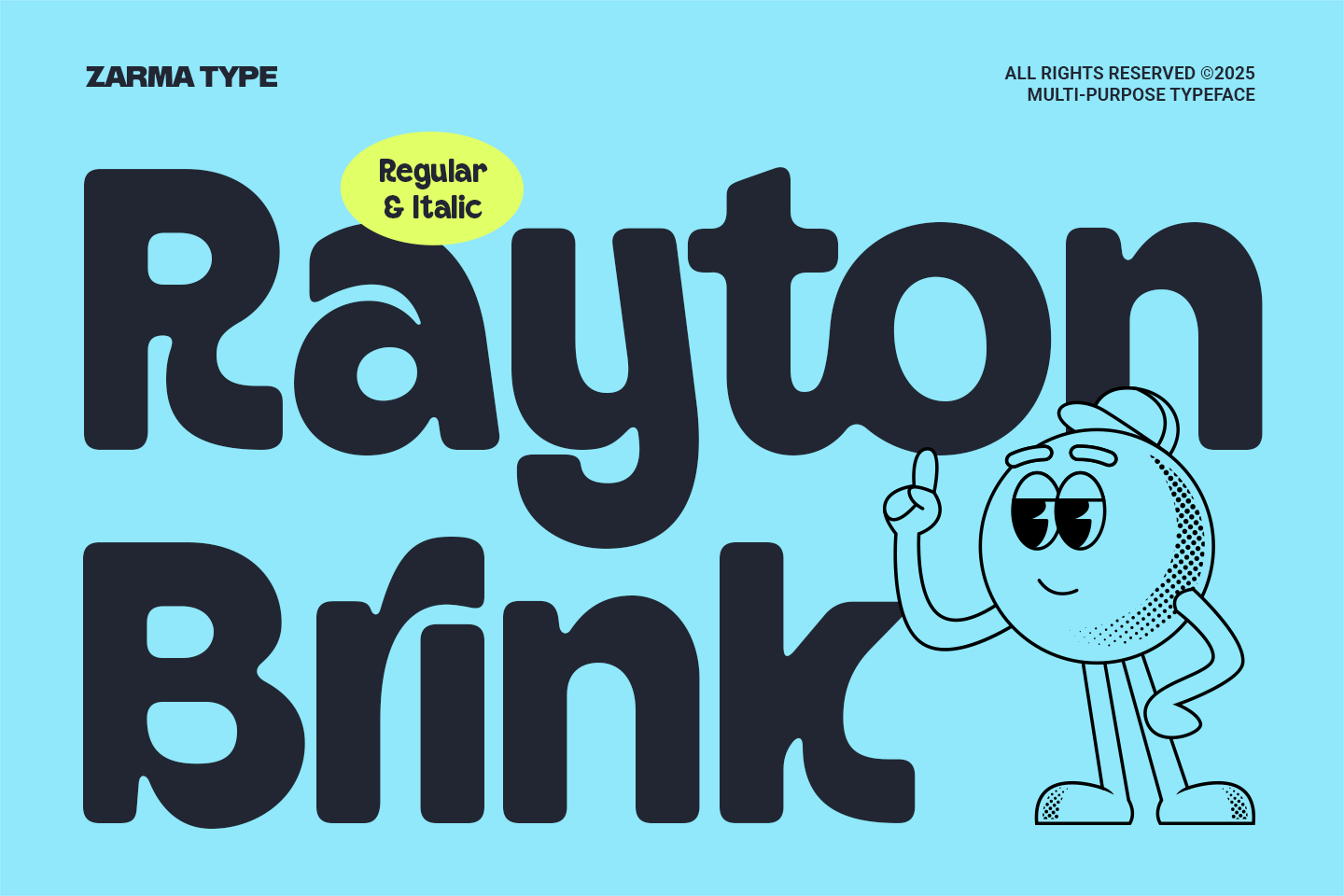
Rayton Brink is a rounded comic style font that feels fun and approachable. Its smooth, thick curves give off a playful vibe, making it great for lighthearted dialogue or cheerful comic scenes.
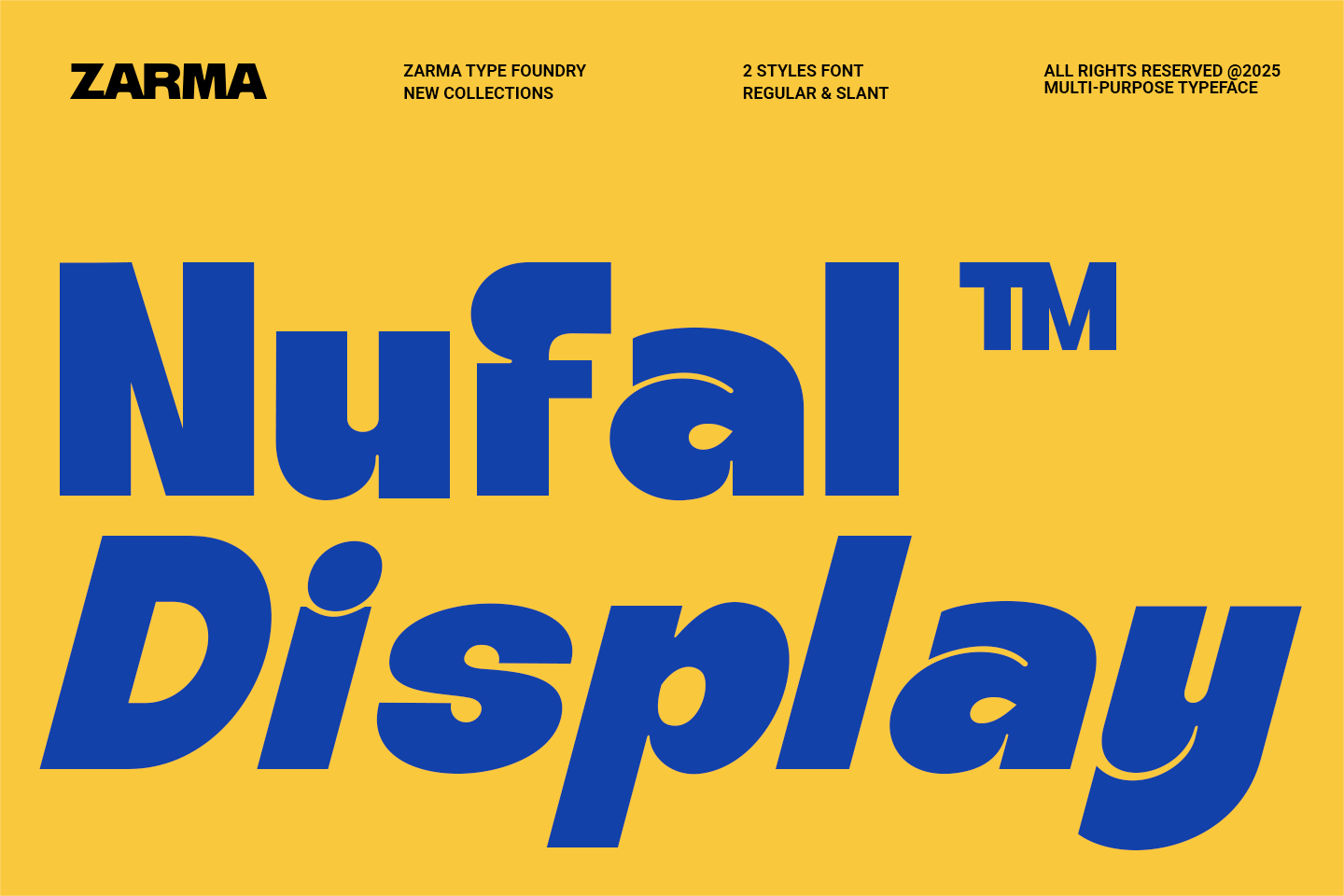
Looking for a font that really pops off the page? Nufal is bold, quirky, and full of energy, which suits well for superhero stories or comedy scenes. Furthermore, it features chunky strokes and playful slants that immediately grab attention.
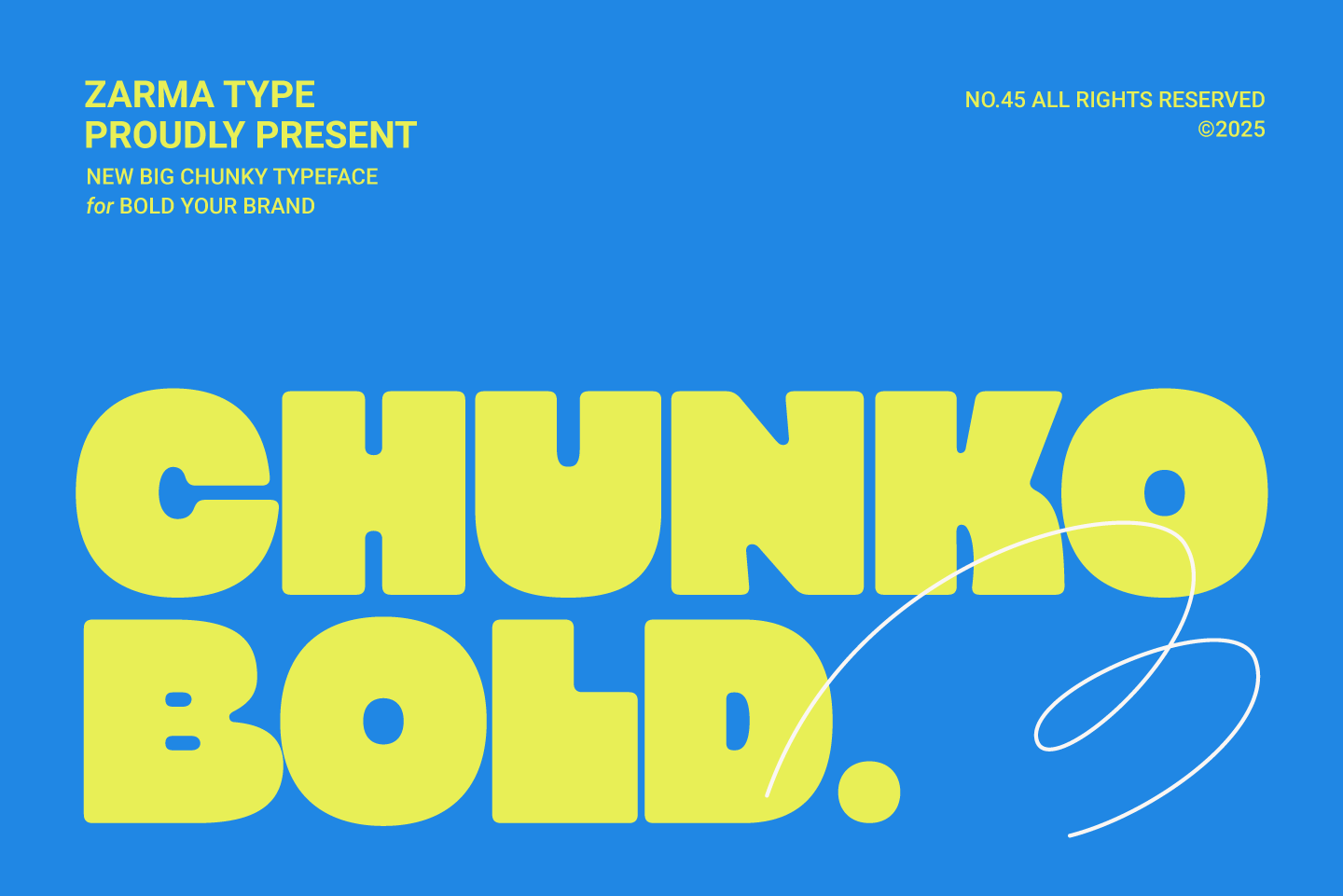
Chunko Bold keeps things simple but loud. With thick strokes and rounded corners, this font for comics works well in action scenes, dramatic covers, or anywhere you need words to stand out.
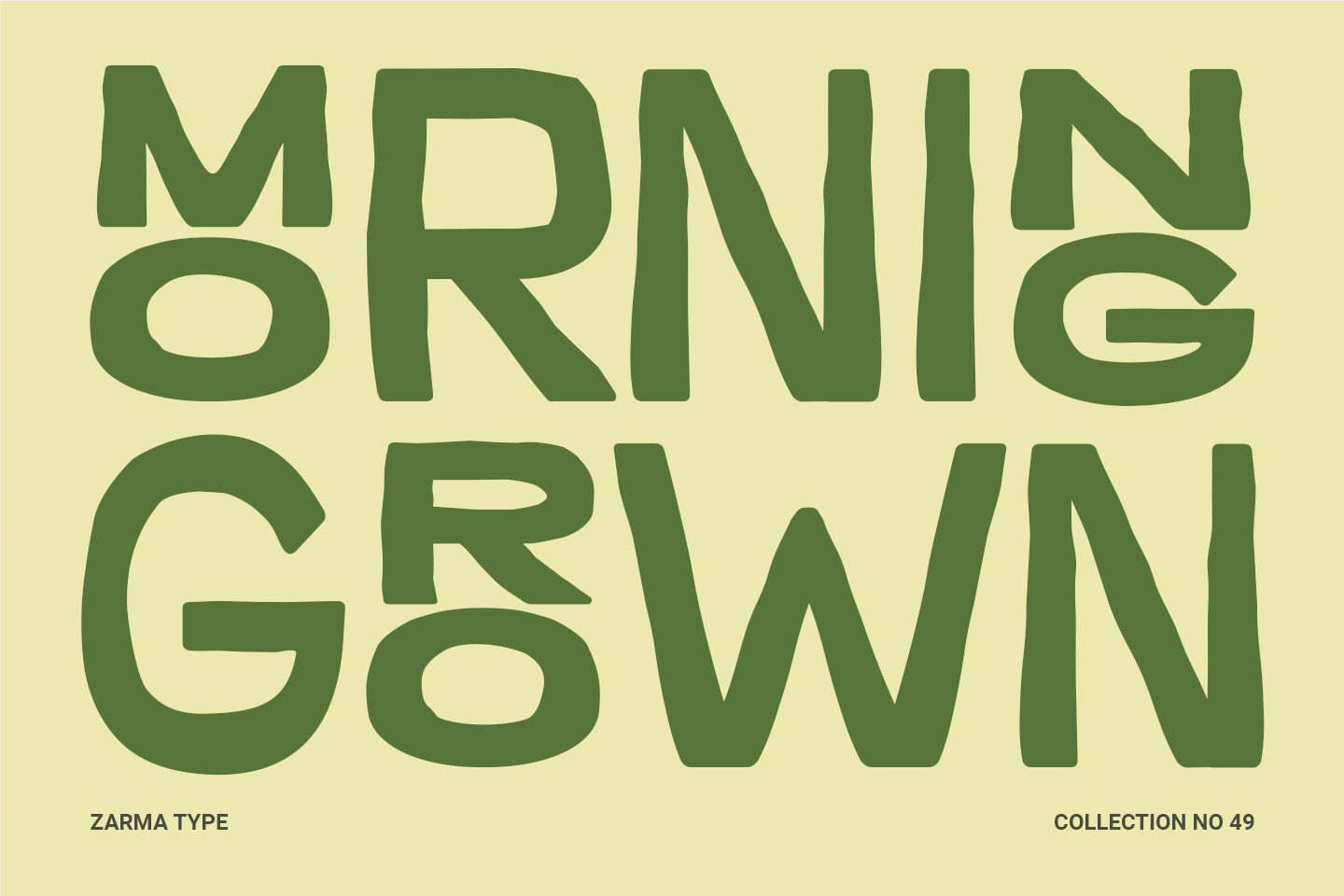
If you want a comic font that feels fun and organic, Morning Grown is a great pick. The bold, wavy lines and irregular letters give it a handcrafted vibe that works well in humor, slice-of-life, or kid-friendly comics.
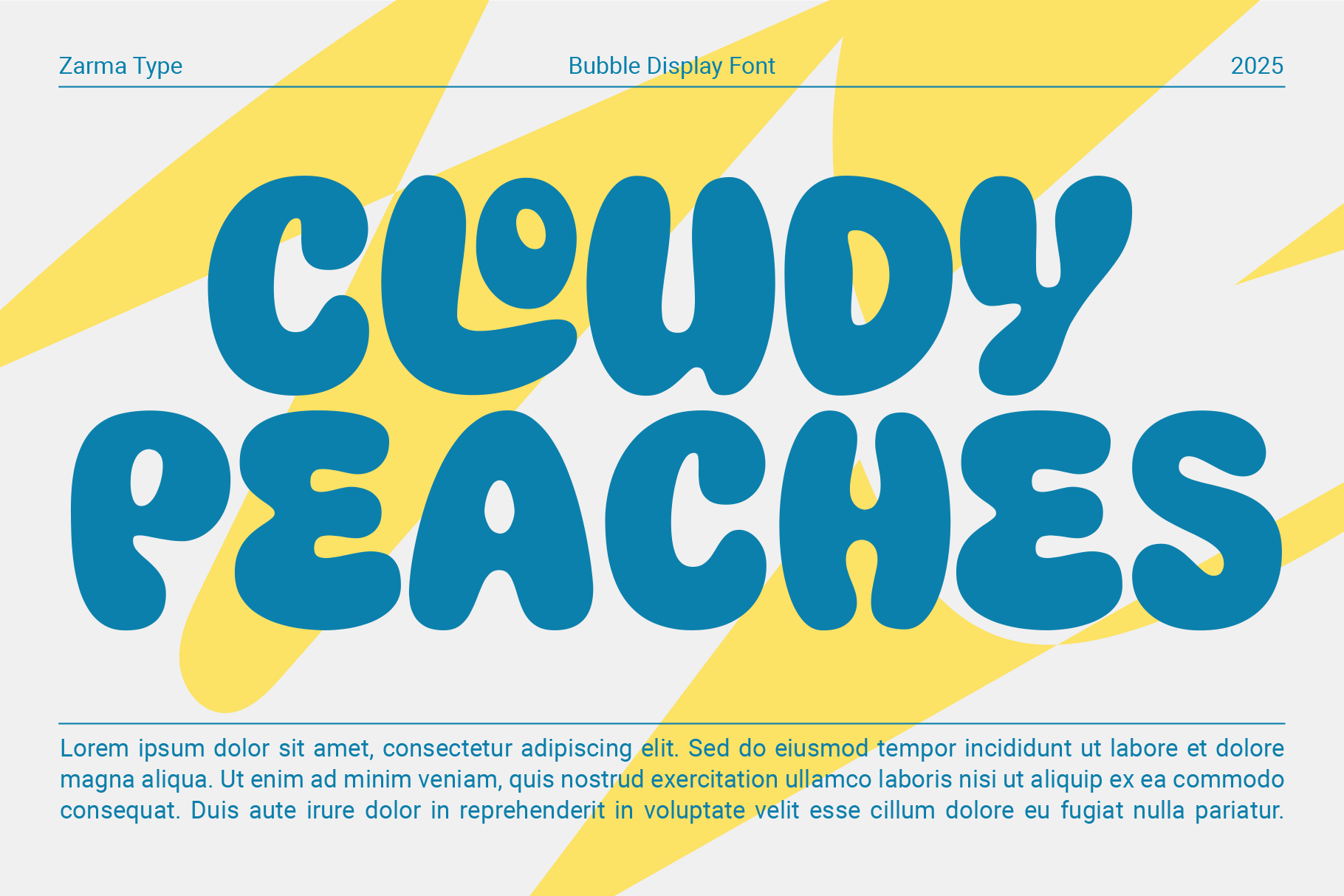
It is a bubbly font for comics that mixes nostalgia with fun. Its rounded shapes and bouncy style make it perfect for lighthearted stories, retro-inspired panels, or any scene that needs a playful vibe.
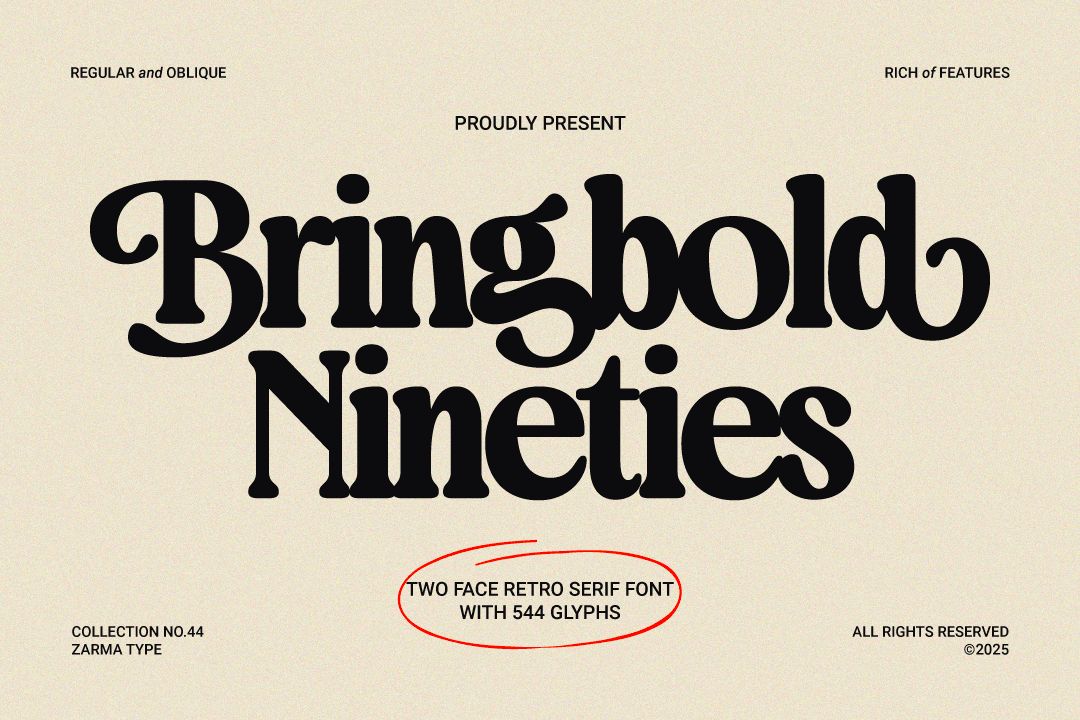
If you love that ’90s look, Bringbold Nineties brings it back in style. This bold serif font adds vintage charm to your comic text while staying clean and easy to read.
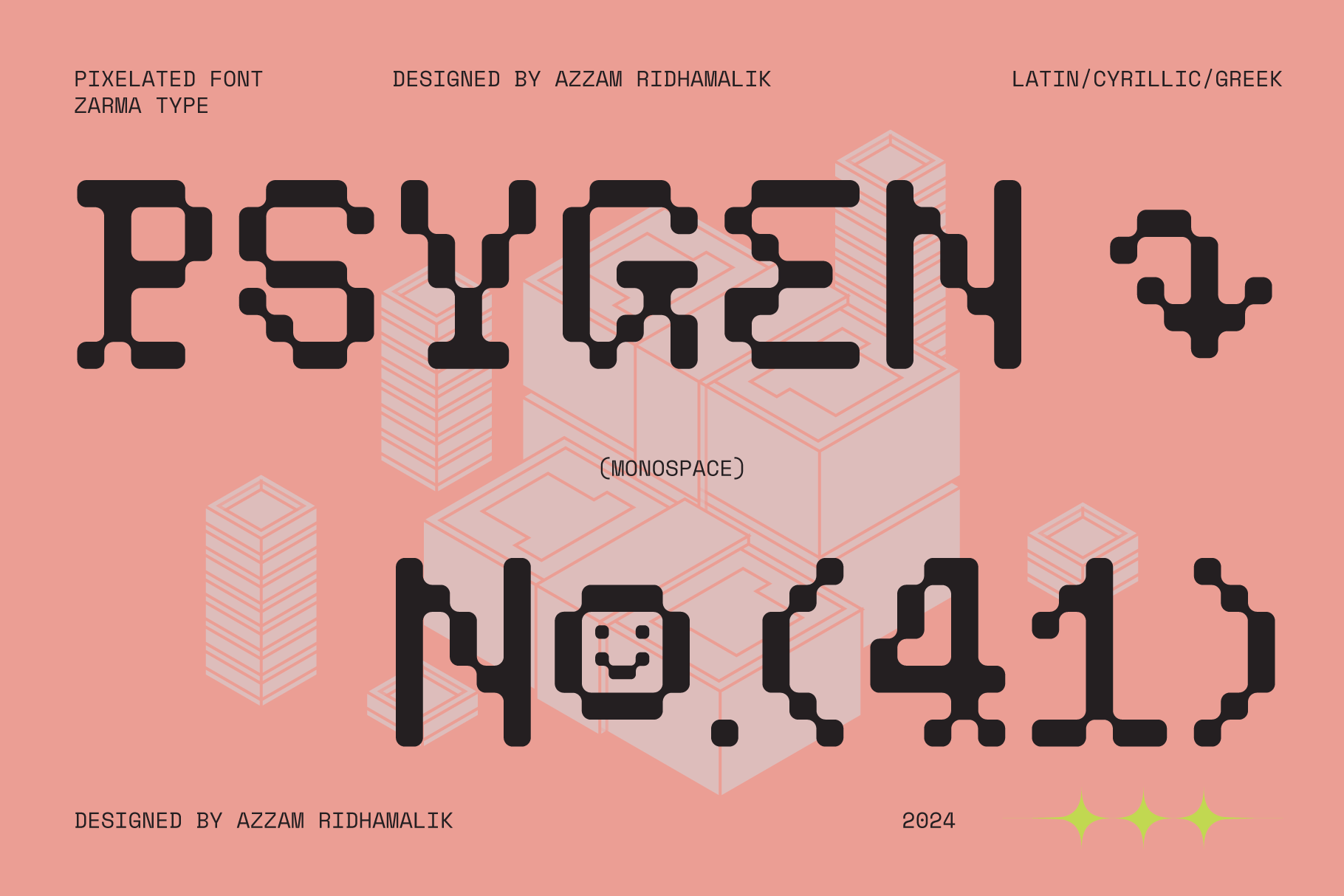
Psygen takes the pixel look and gives it a new twist. With its bold, square forms, this font for comics is ideal for panels set in virtual worlds, sci-fi battles, or any story with a digital edge.
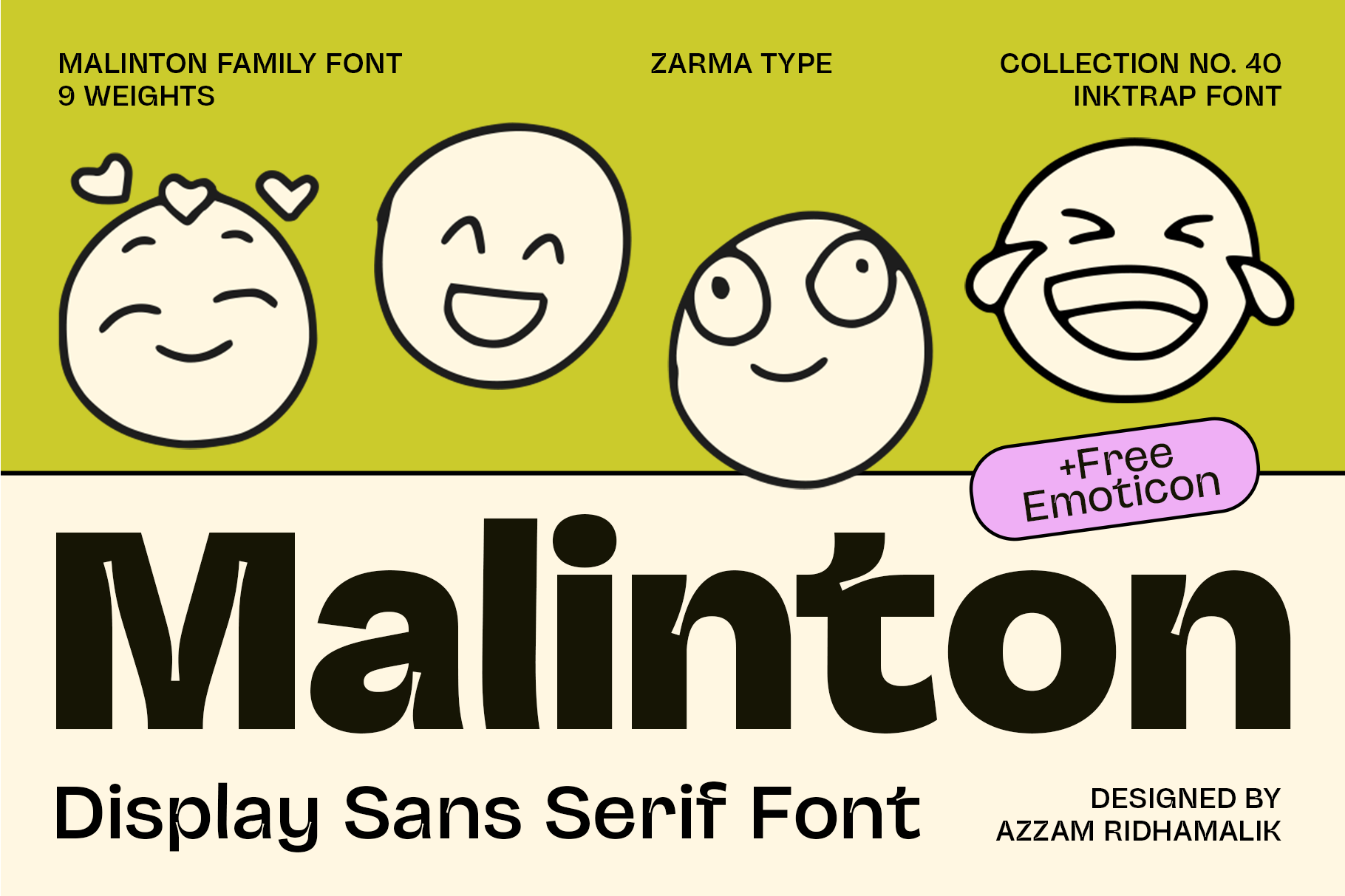
What makes Malinton stand out is its balance; fun enough to feel lively, but clean enough to stay easy to read. It’s a solid pick for slice-of-life comics or casual dialogue.
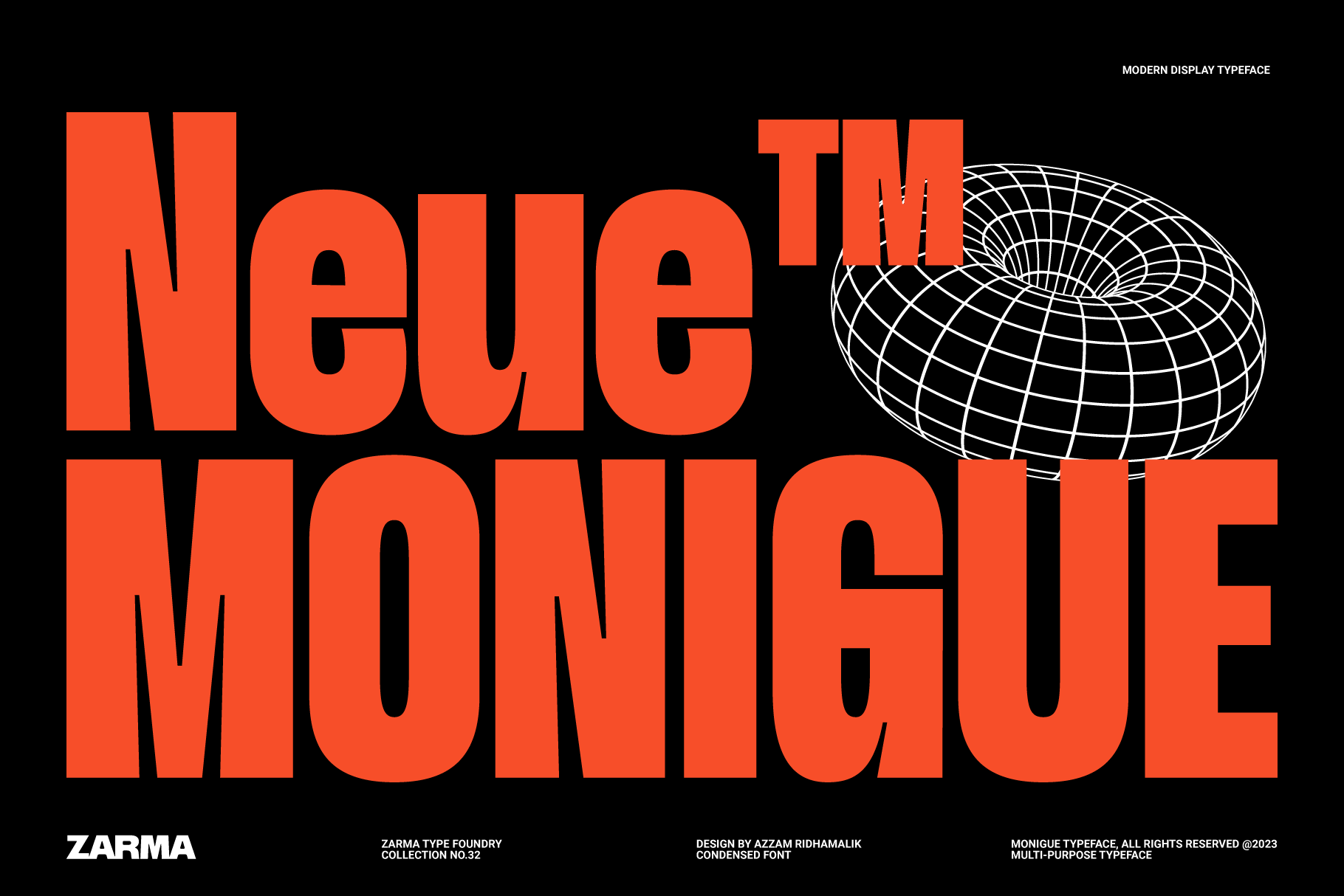
Monigue is all about strength and style. This condensed comic font channels 2000s design with a fresh twist, making it ideal for edgy stories, sharp titles, or as a bold font for manga that needs a modern edge.
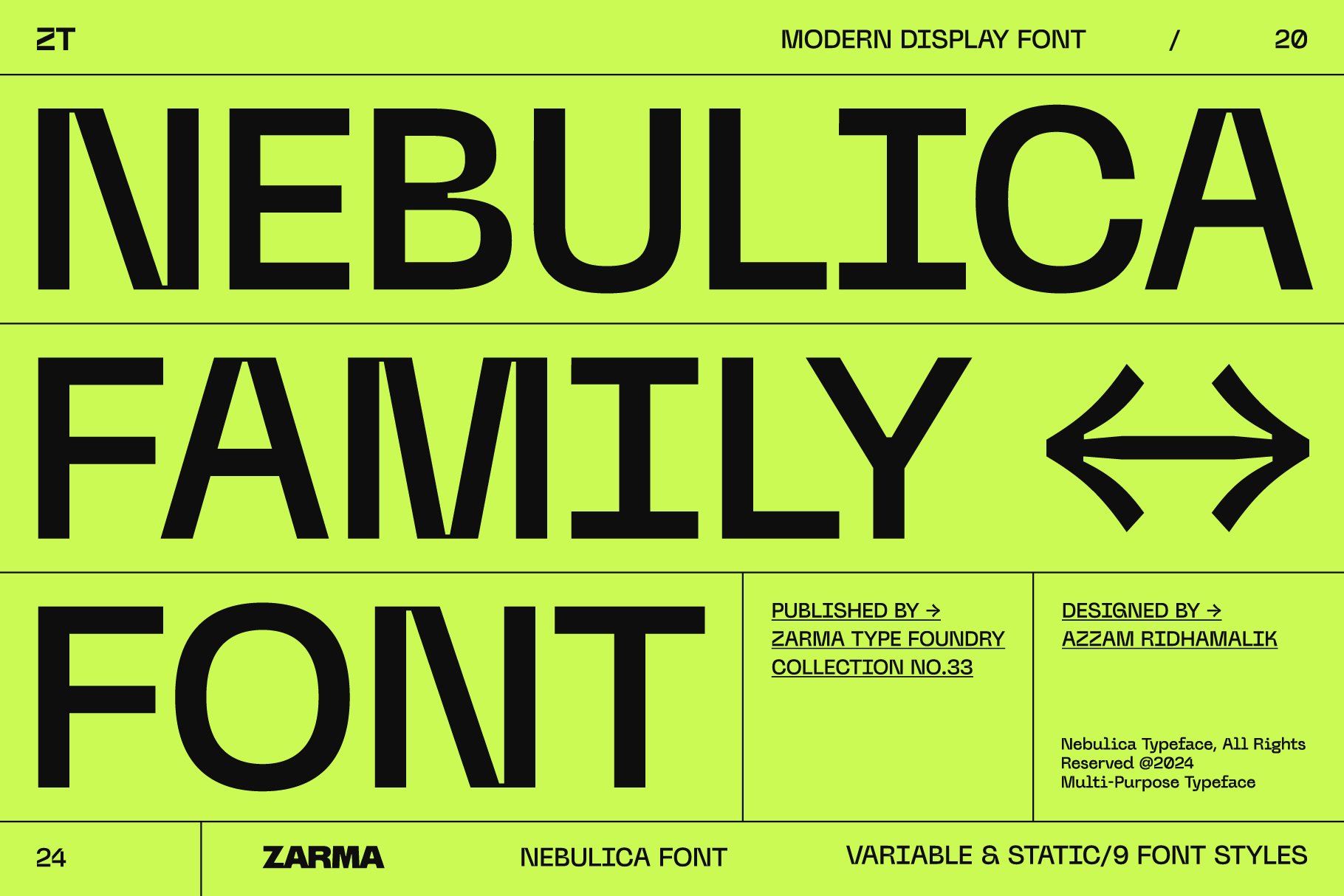
Nebulica is a geometric sans font for comics with a sharp, modern edge. Its clean lines and experimental details give panels a futuristic feel, great for sci-fi or tech-inspired stories.
Bilgres is the best font for comics, evoking a hippie-inspired charm. With its rounded forms and playful vibe, it works well for light, quirky stories or panels that need a relaxed, fun energy.
Looking for a font with street flair? Bulbis takes cues from graffiti and bubble lettering, giving comics a playful yet edgy vibe, great for youth-focused comics.
Marige is a bold, high-contrast font for comics that radiates confidence. It’s a clear example when people ask what font do comics use, thanks to its strong strokes and stylish details.
Moldin brings bold energy to the page. With its condensed form and industrial edge, this font for comics works best in stories that demand strength, grit, and a striking visual presence.
Below are the reasons you need to know about choosing the right font for comics:
By understanding the points above, it becomes easier to choose the most suitable font that matches your comic’s theme and enhances the overall storytelling.
The best font for comics can do more than fill speech bubbles; therefore, it can set the tone, enhance emotions, and strengthen your storytelling. Whether you need something playful, bold, or dramatic, choosing the right typeface helps your comic stand out and connect with readers.To discover more options beyond this list, check out Zarmatype, where you’ll find a wide range of unique and professional fonts perfect for comic projects. With the right choice, your story will not only look better but also feel more impactful.